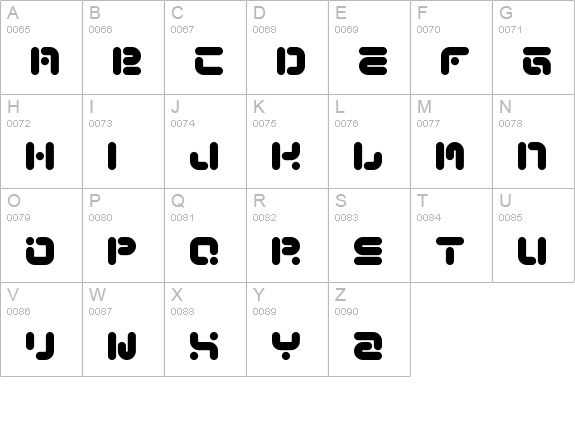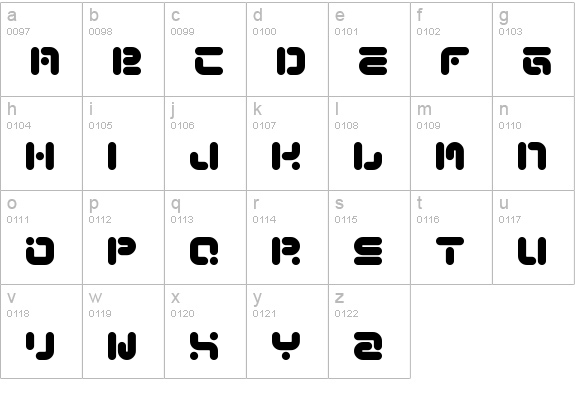
Funky Knut Sober font is a playful and unique typeface that exudes a sense of fun and quirkiness. With its bold and dynamic letterforms, this font is sure to make your designs stand out from the crowd. The combination of funky curves and sober lines creates a harmonious balance that is both eye-catching and easy to read. Best of all, Funky Knut Sober font is available for free download at FontsMarket.com. Whether you're working on a creative project or simply looking to add a touch of personality to your designs, this font is the perfect choice. So go ahead and give your projects a fresh and funky look with Funky Knut Sober font today!